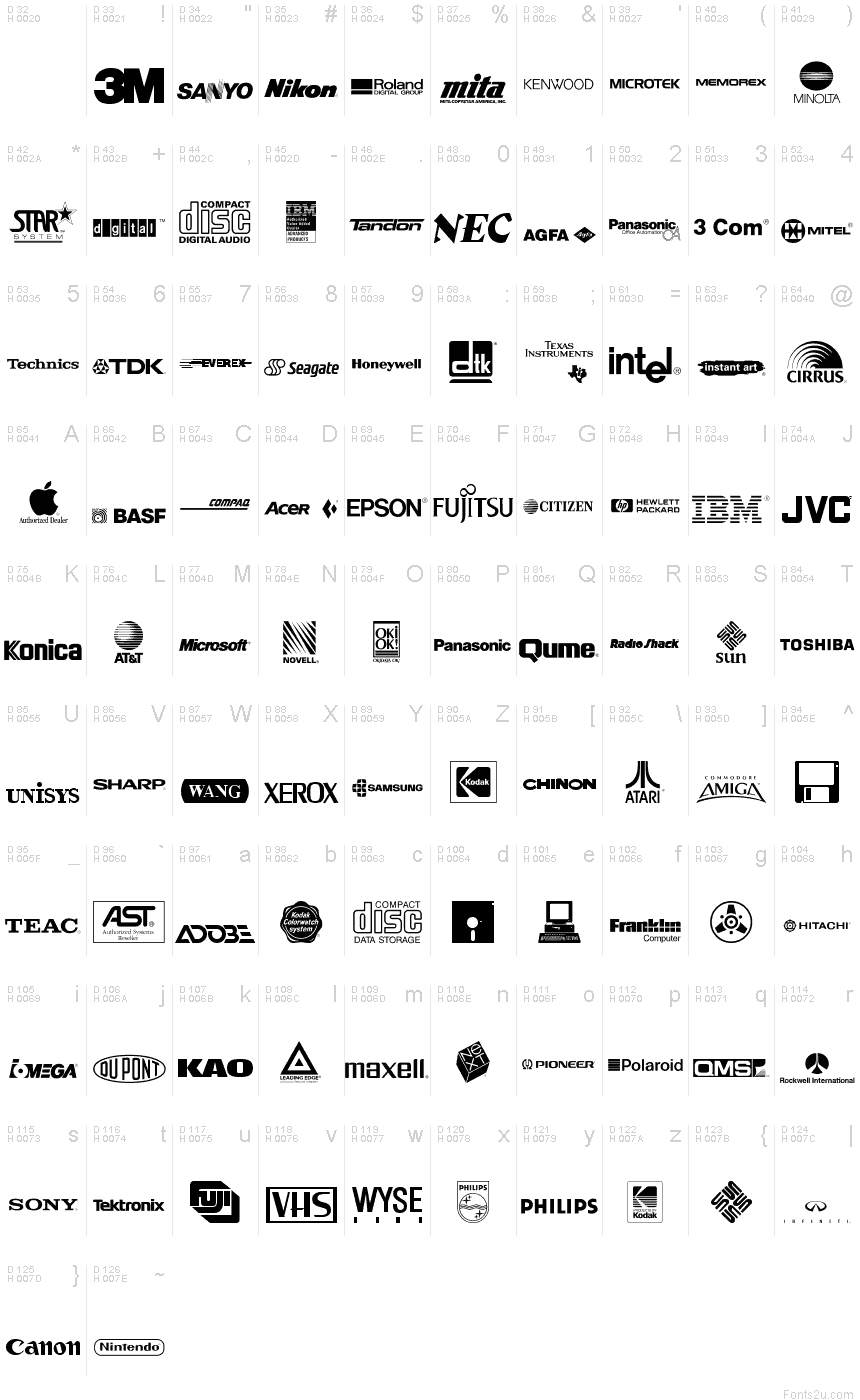
Electronics Regular
Electronics font by Magnum Software is a free dingbat logo typeface that packs a strip of crisp, black‑and‑white electronics brand marks into a single file. Each glyph drops in like a ready-made badge, saving you from redrawing familiar tech logos or hunting low‑res icons. The marks are sharp, compact, and consistent in weight, so they sit neatly in tight layouts and still read clearly at small sizes.
Using Electronics, you can quickly brand comparison charts, tech store flyers, repair shop signage, spec sheets, ecommerce product listings, and hardware review graphics. This free font shines when you need recognizable logos to punctuate dense information without clutter. For a clean hierarchy, pair Electronics with a simple geometric sans for body text and keep the logo glyphs one or two sizes larger than the surrounding copy.